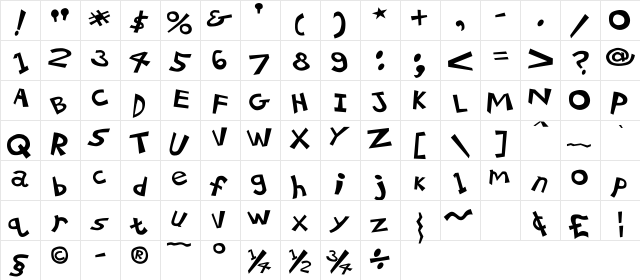
21 Kilobyte Salute Regular
Design Context for 21 Kilobyte Salute Typeface
21 Kilobyte Salute is a composed and adaptable typeface that performs quietly and consistently across a wide range of design contexts.
Pro Tip: Use 21 Kilobyte Salute in both headline and body roles to test its range before committing to a single application.